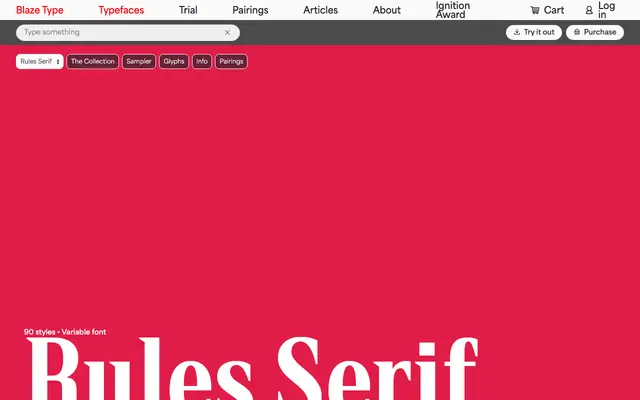
Rules Serif specimen from Blaze Type
A 90-style variable serif from Blaze Type spanning five widths and nine weights, each with matching italics.
The family runs from Compressed to Expanded across five sub-families, each offering nine weights from Thin to Black with italic counterparts. With 90 styles and a variable font format, it covers a broad range of typographic needs from tight display headlines to extended body settings. The sheer width range makes it suited to publication design and identity systems that require width-based contrast rather than a change of typeface.
A serif family spanning five width variants from Compressed to Expanded, with a full weight range and italics throughout, suggesting a contemporary workhorse serif designed for versatile typographic systems.